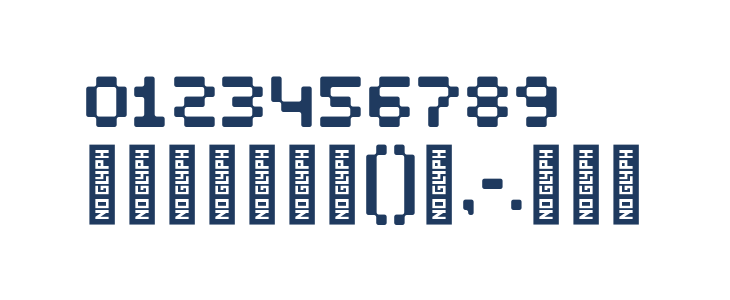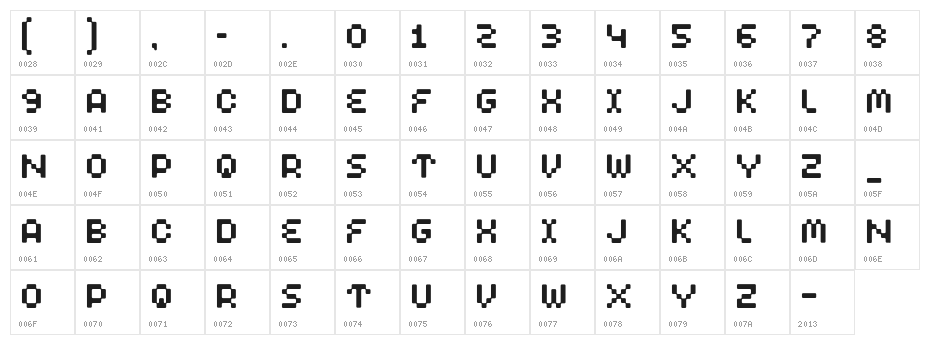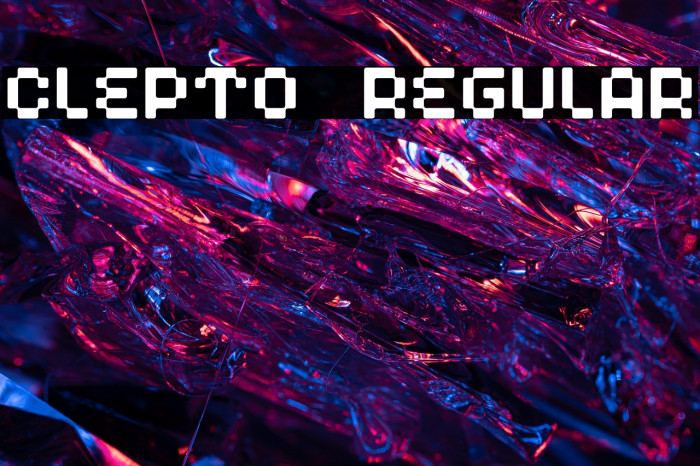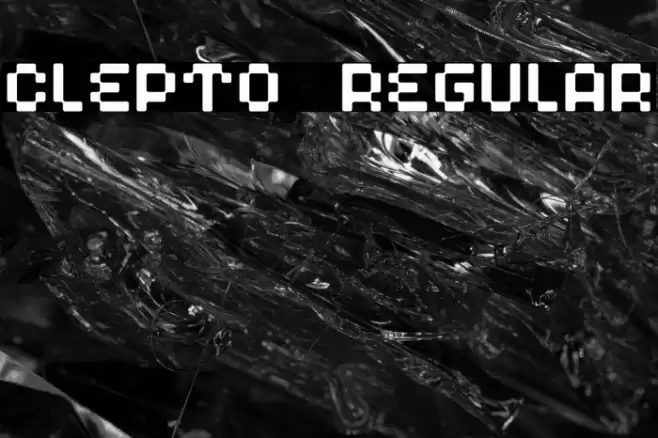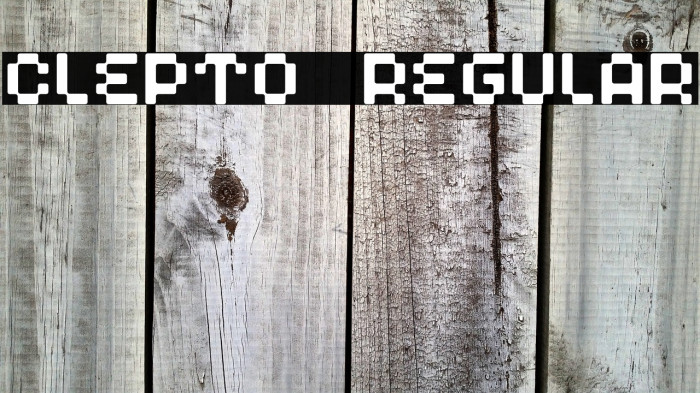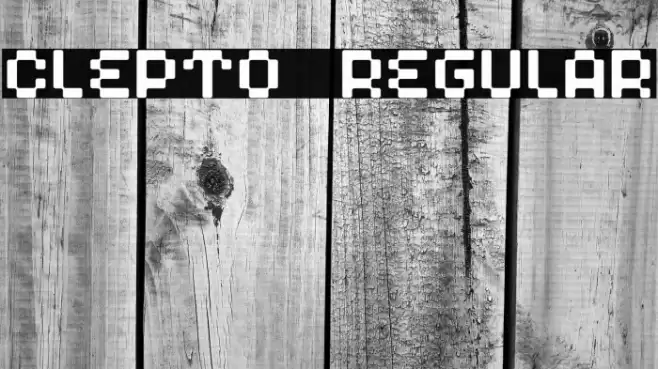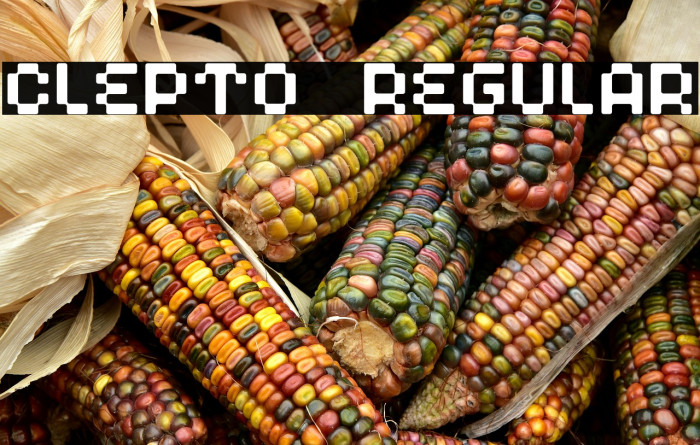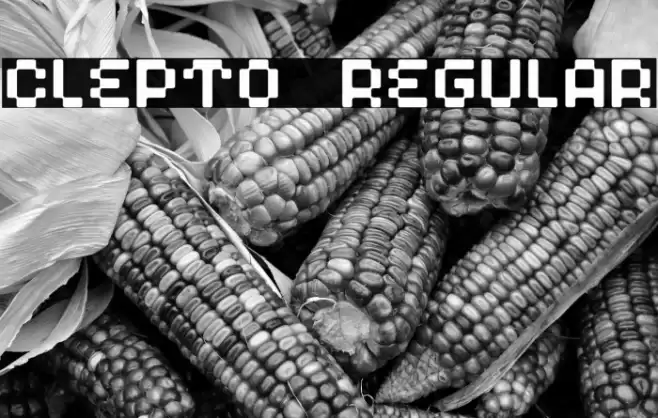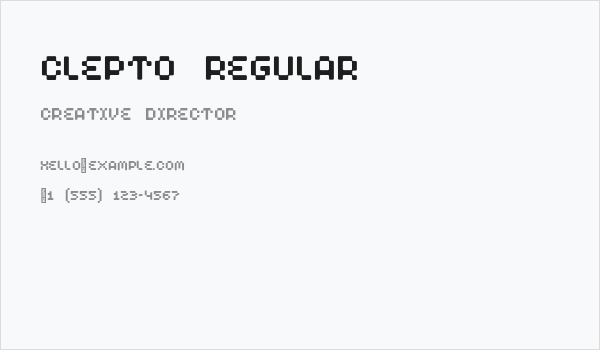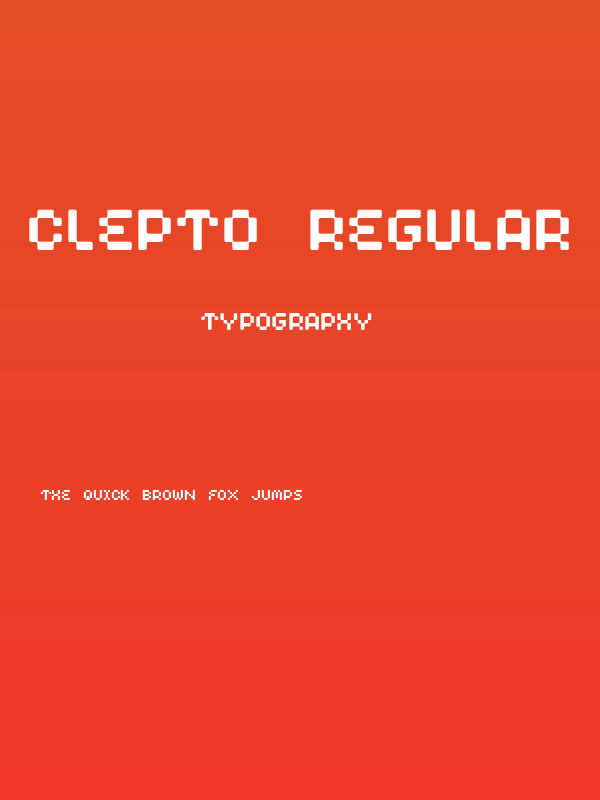
Clepto Regular Font
Clepto Regular Description
This font features a bold, geometric style with a pixelated, blocky appearance reminiscent of early digital displays. The characters are uniformly structured with consistent stroke thickness, creating a cohesive and modern look. The uppercase and lowercase letters maintain a similar height, enhancing the uniformity and making it ideal for digital or retro-themed projects. The numbers and limited special characters follow the same design principles, ensuring a seamless integration across different text elements. The absence of curves and the emphasis on straight lines and right angles give it a distinct, tech-inspired aesthetic.